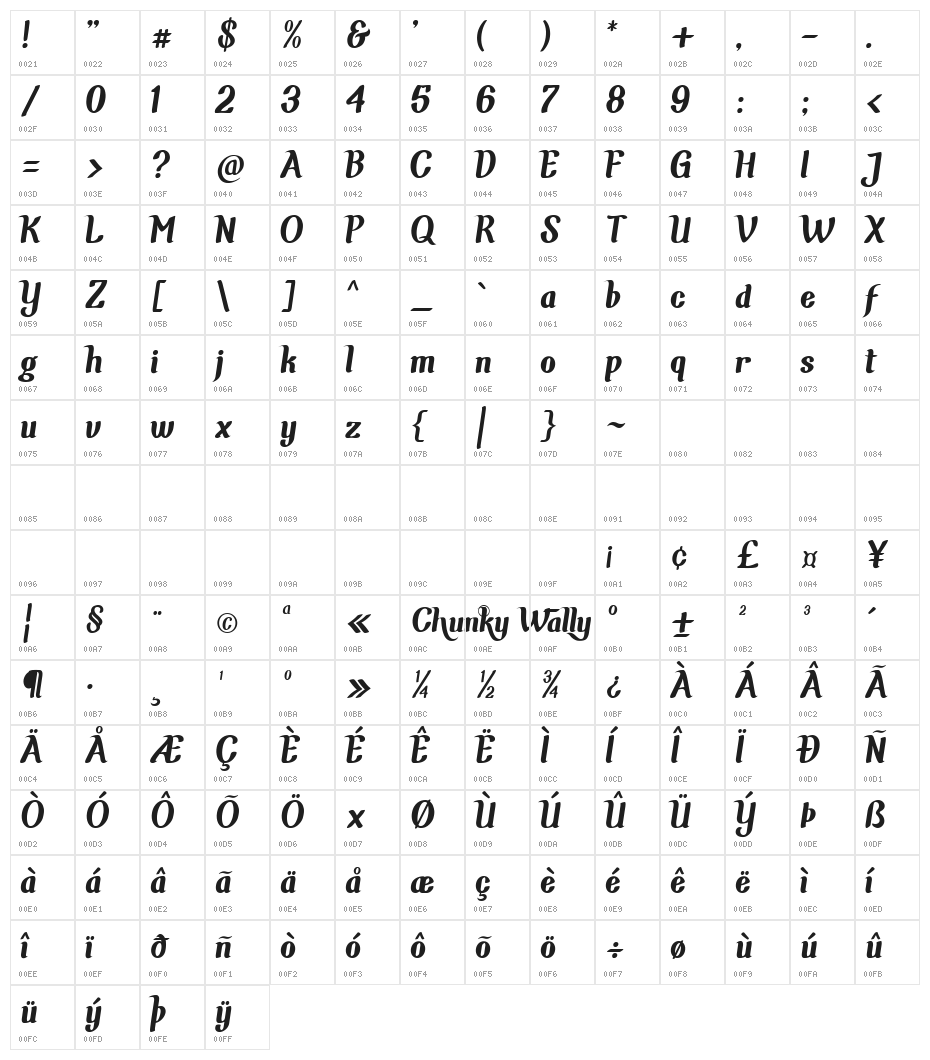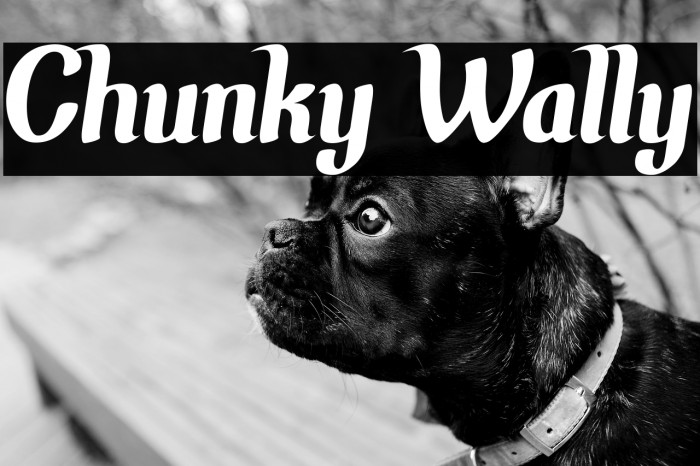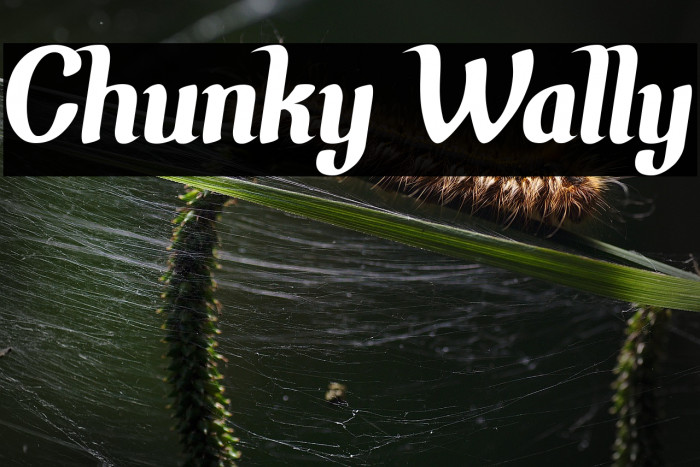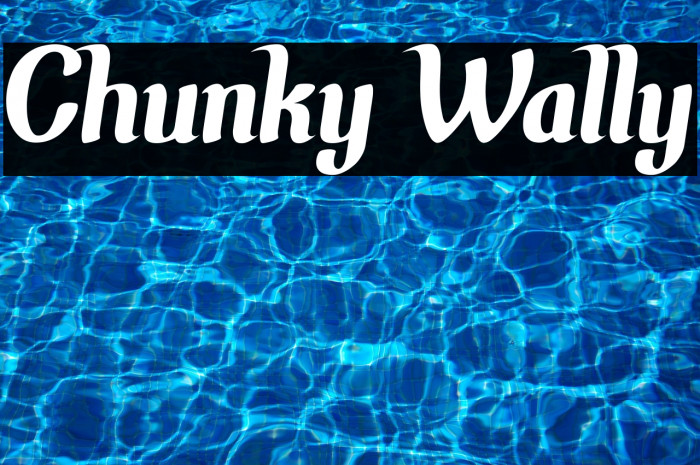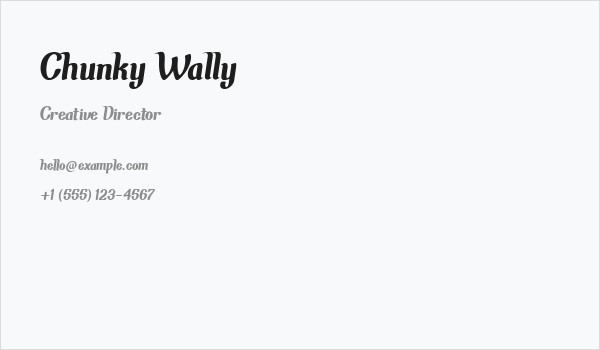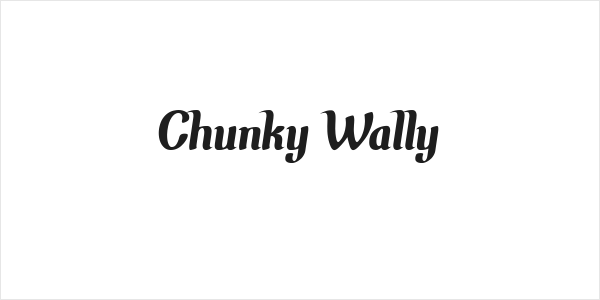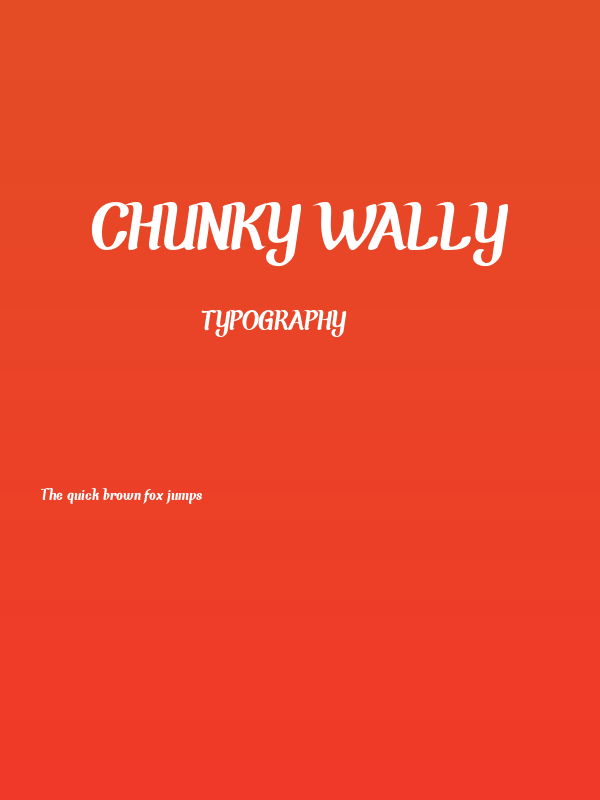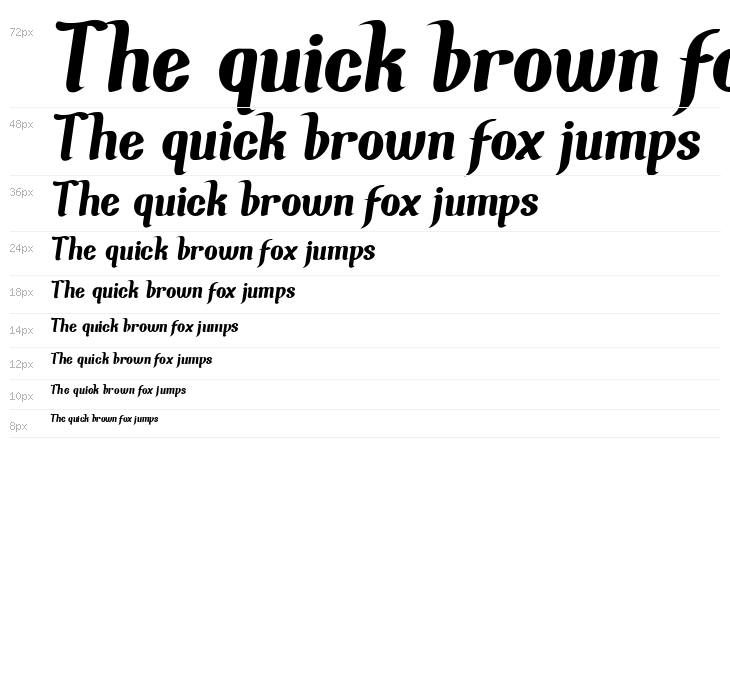
Chunky Wally Font
Chunky Wally Description
This font features bold, rounded characters with a playful and dynamic appearance. The letters have a slight slant, giving them a sense of movement and energy. The strokes are thick and consistent, contributing to a strong visual impact. The overall design is reminiscent of retro styles, making it suitable for projects that require a touch of nostalgia. The font includes a full set of uppercase and lowercase letters, numerals, and a variety of special characters, ensuring versatility in design applications.
| Overall Style | Retro |
| Proposed Projects | Ideal for posters, branding, packaging, and any design that needs a bold, retro touch. |